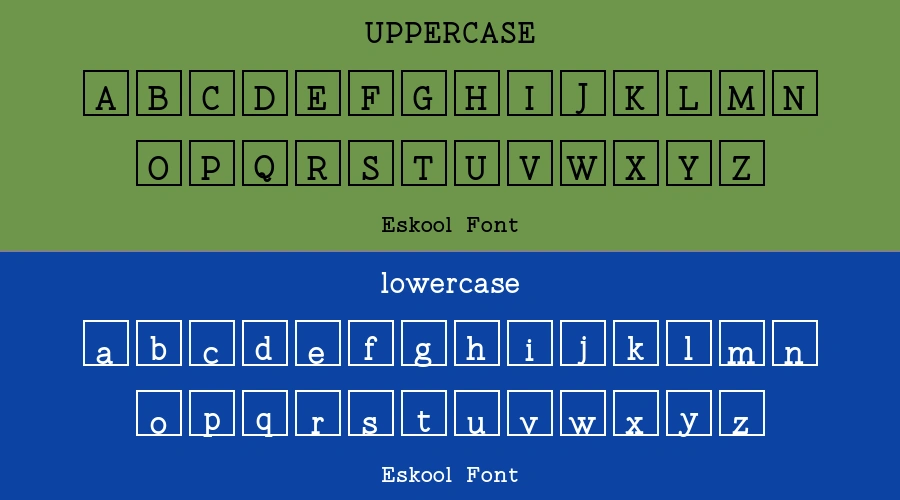
About Eskool Font
Eskool Font embodies typographic excellence through its masterful combination of measured spacing and typographic texture. Created for scientific journals, this typeface delivers exceptional consistency and technical precision across all applications. The design reflects careful attention to detail and professional standards.
Advanced capabilities include distinctive ornamental caps and versatile arbitrary fractions, giving designers creative control. When used in pull quotes, Eskool Font exhibits remarkable small text clarity. The harmonious balance between x-height proportion and artistic merit sets this typeface apart.